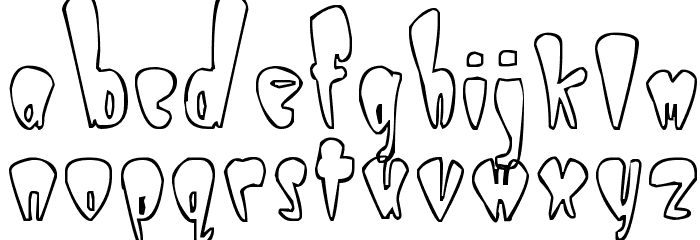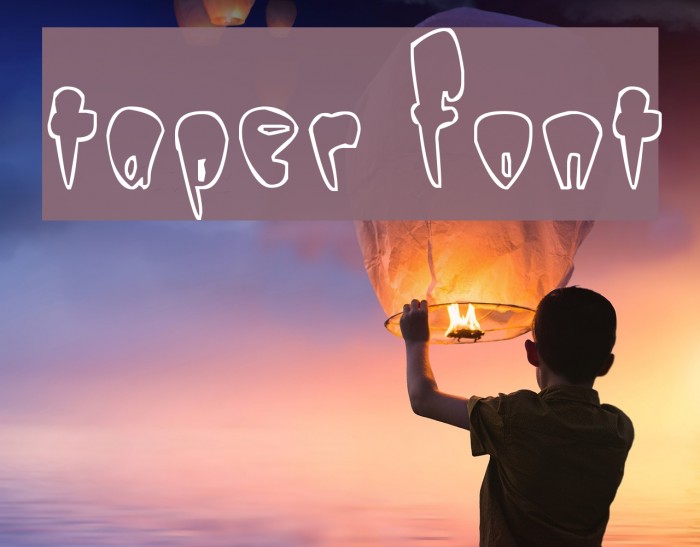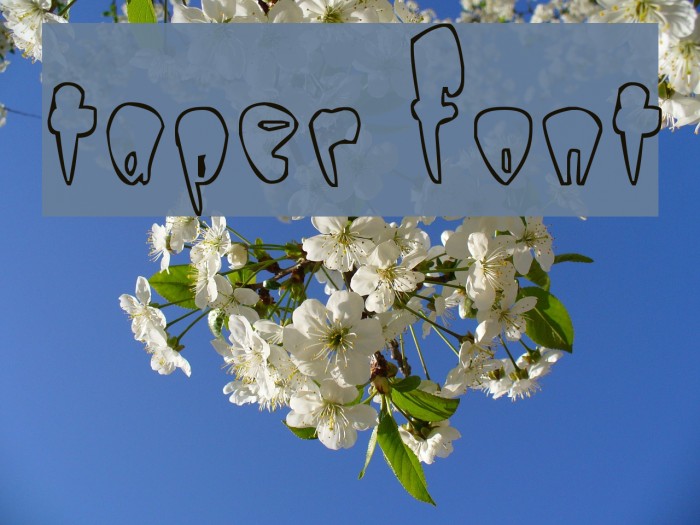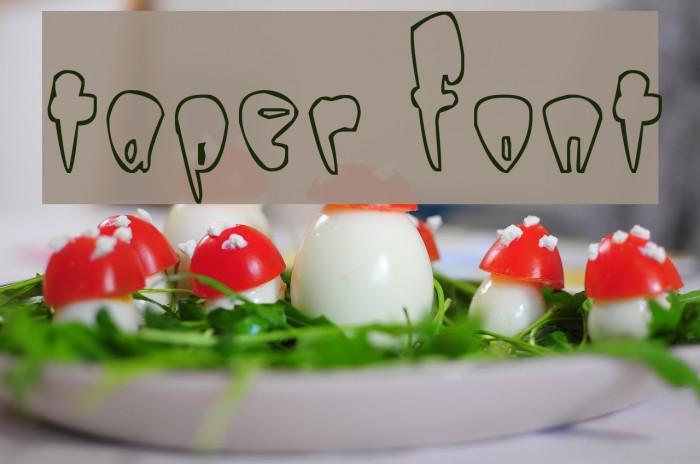
Taper Font
This font features a playful and quirky design with exaggerated, elongated letterforms that taper to a point. The characters have a hand-drawn feel, with irregular strokes and whimsical shapes that give it a unique personality. The uppercase and lowercase letters maintain a consistent style, with the uppercase being slightly more structured. The numbers and special characters follow the same playful aesthetic, making this font suitable for creative and informal designs. Its distinct style makes it stand out, perfect for projects that require a touch of fun and creativity.
A playful, hand-drawn font with elongated, tapered letterforms.
- Proposed Projects: Ideal for children's books, creative posters, playful branding, and whimsical invitations.
- Overall Style: Whimsical